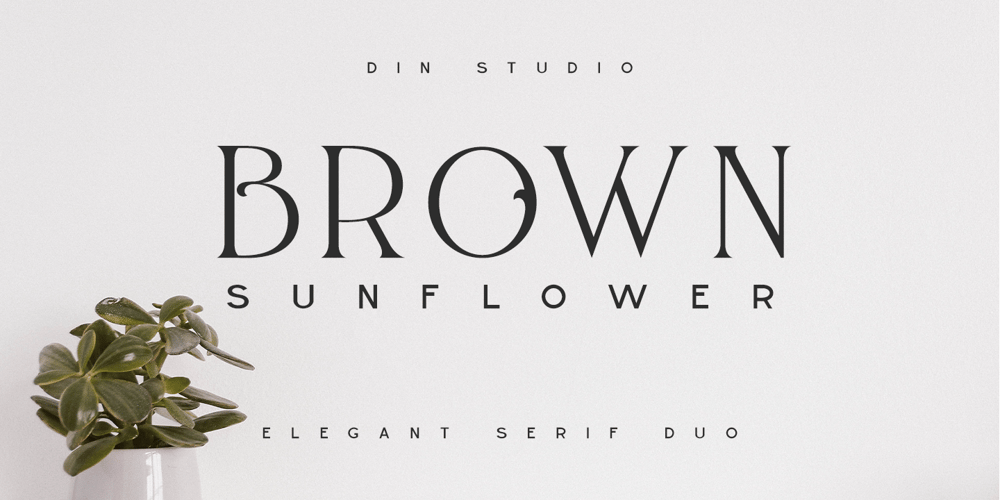
Brown Sunflower
Brown Sunflower font
Brown Sunflower Font Family was designed by Donis Miftahudin and published by Din Studio. Brown Sunflower contains 2 styles and family package options. Introducing Brown Sunflower Font – Font Duo. Brown Sunflower font is an elegant font. Combined from light modern serif and decorative sans serif. It will make your design more modern and more beautiful. Visit our best-selling productsFeatures : Accents (Multilingual characters) Many Alternates PUA encoded Numerals and Punctuation (OpenType Standard) Full Support Please Note its All Caps.